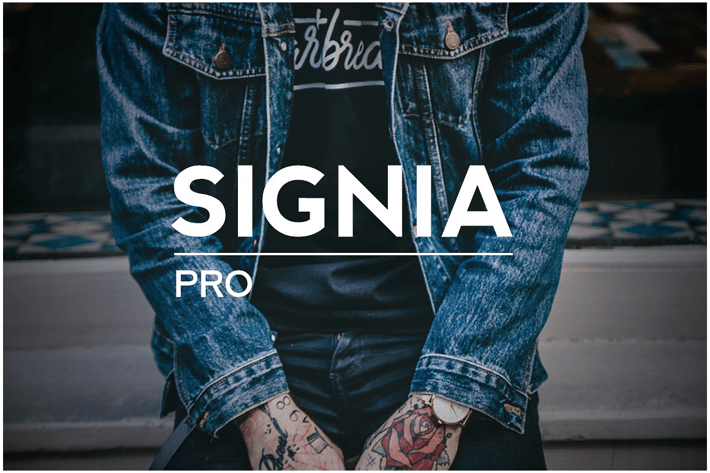
SIGNIA Pro Modern Typeface + WebFont
SIGNIA is a modern Sans Serif typeface inspired by European city street lettering styles. SIGNIA will be best suited to create nicely looking headlines (add some extra letter spacing and it will amaze you) as well as page content that looks fresh and modern.
SIGNIA features 2 weights non-italic (Regular / Bold). The pack includes OTF, TTF and Web Fonts (all EOT, SVG, TTF, WOFF included).